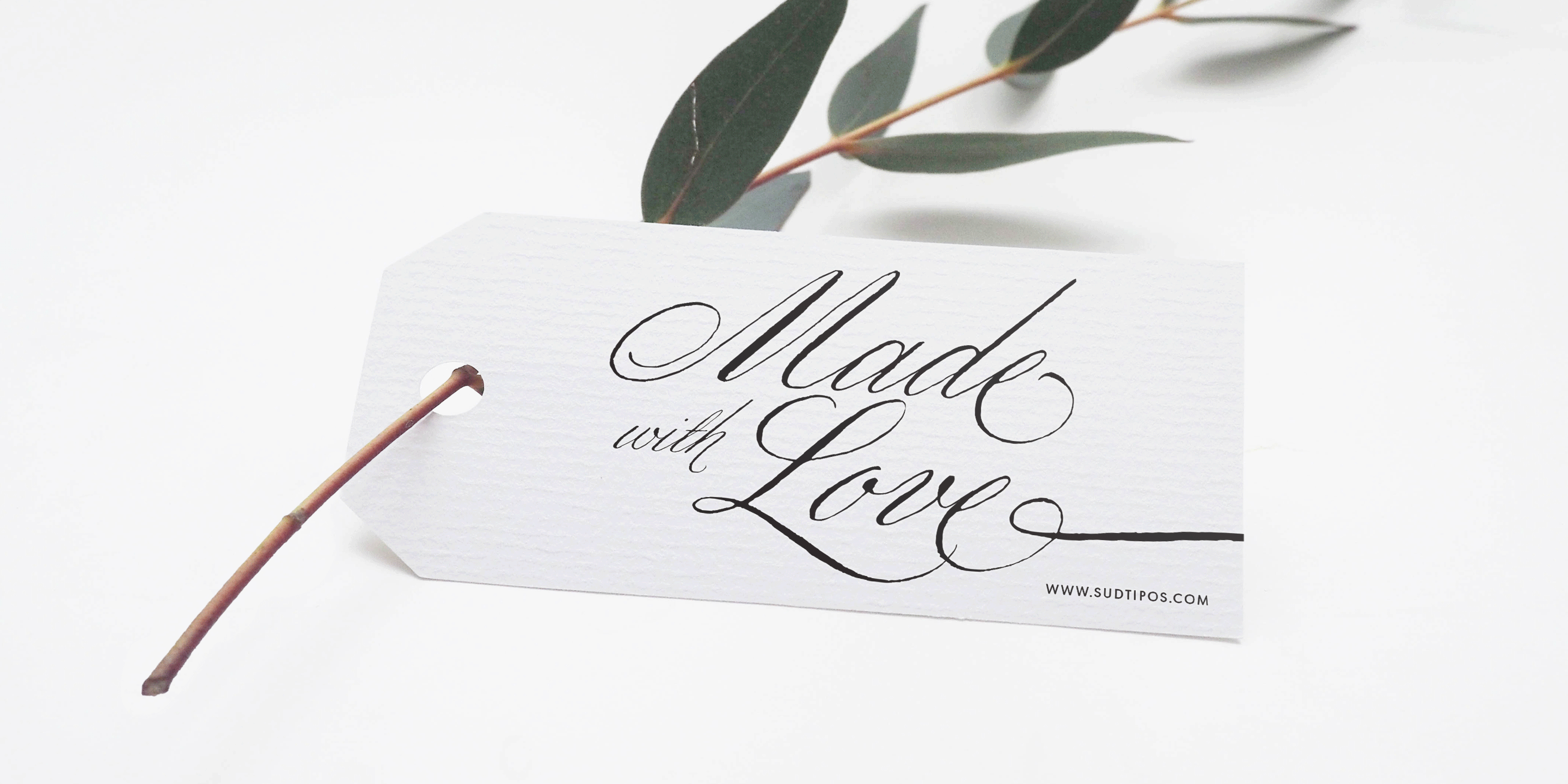
Wordless Script Font is perfect for poetic publication designs, silent film title cards, meditation center branding, minimalist wedding invitations, abstract art exhibitions, contemplative book covers, spiritual retreat materials, and expressive artistic projects. This eloquently flowing typeface excels in projects requiring emotional depth and unspoken communication where silence meets powerful visual storytelling.
What makes Wordless Script Font exciting is its profound ability to communicate emotion and meaning through gracefully flowing letterforms that speak volumes without uttering a single word. The font features contemplative characters with meditative proportions and expressive details that convey inner peace, emotional depth, and the powerful language of silence that transcends verbal communication. Its contemplative character makes it perfect for spiritual brands and artistic projects celebrating the beauty of non-verbal expression and meaningful quiet moments.
Wordless Script Font family includes multiple weights and expressive variations that enhance its contemplative appeal while providing design flexibility for spiritual and artistic applications. The family typically offers light, regular, medium, and bold weights, along with flowing alternates, meditative symbols, and contemplative ornaments that complement spiritual and artistic design themes perfectly.
Whether you're developing meditation retreat branding, creating poetic publication layouts, or designing contemplative art exhibition materials, Wordless Script Font Free Download provides the perfect expressive solution for projects celebrating the power of silence and non-verbal communication. This font's spiritual depth and artistic sensitivity make it essential for brands and artists who understand that sometimes the most powerful messages are communicated without words.
The expressively flowing letterforms and contemplative proportions of Wordless Script Font create immediate emotional connections that transcend language barriers while maintaining excellent readability across all artistic applications. Its distinctive meditative personality and spiritual symbolism make it an invaluable tool for designers working with spiritual, artistic, and contemplative brands. Download Wordless Script Font today and speak volumes without words in your creative projects with this profoundly expressive typeface that perfectly captures the eloquent beauty of silence and the universal language of emotion.